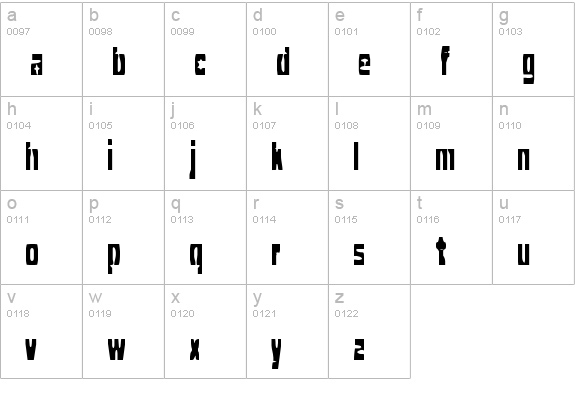
Cleaved TTR -BRK- Font Details
Introducing Cleaved TTR -BRK- font, a stunning and unique typeface that combines modern design with a touch of edgy sophistication. This font features sharp, cleaved edges that give it a bold and dynamic appearance, making it perfect for projects that require a strong visual impact. Cleaved TTR -BRK- font is not only visually striking but also versatile, making it suitable for a wide range of design applications, from branding and advertising to posters and packaging. Its bold and distinctive look is sure to make your text stand out and leave a lasting impression on your audience. Best of all, Cleaved TTR -BRK- font is completely free to download at FontsMarket.com, making it accessible to designers of all levels. Whether you're a seasoned professional looking to add a fresh new font to your collection or a student working on a personal project, this font is the perfect choice for adding a touch of style and creativity to your designs. Don't miss out on this fantastic opportunity to enhance your design projects with the striking Cleaved TTR -BRK- font. Download it for free today and unleash your creativity like never before!